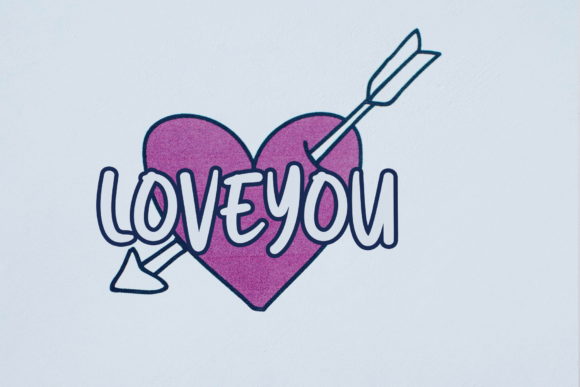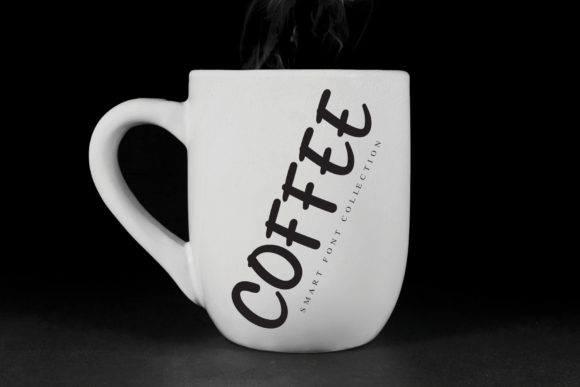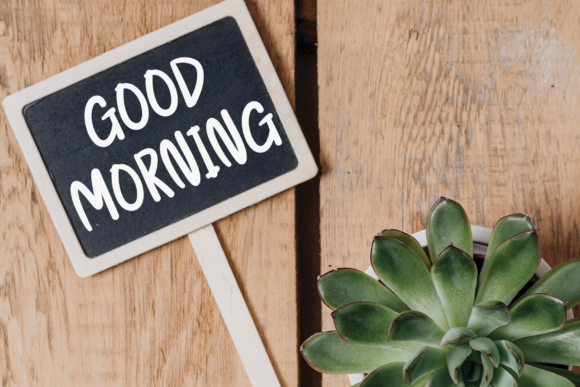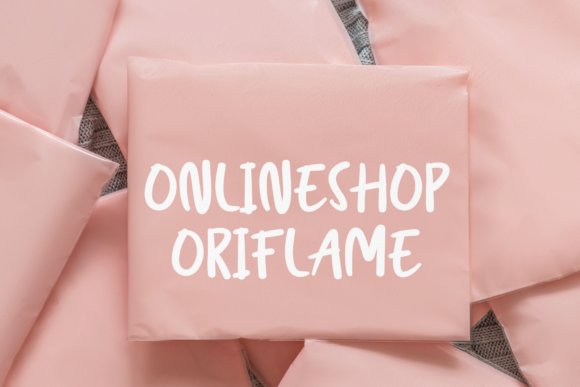
About Honey Bee Font
Honey Bee is a casual handwritten font that adds a touch of simplicity and charm to your craft designs. With its effortless style and easy readability, this font is perfect for mixing with various craft projects and creating beautiful compositions.
The casual nature of Honey Bee font makes it approachable and versatile. Its natural and relaxed letterforms contribute to a visually pleasing aesthetic that feels genuine and authentic. Whether you’re working on scrapbooking, card making, DIY crafts, or any other creative project, Honey Bee font enhances the overall visual appeal with its casual and easygoing demeanor.
Using Honey Bee font allows you to incorporate a sense of simplicity and beauty into your craft designs. Its handwritten appearance adds a personal and organic touch, making your designs feel handcrafted and unique. This font brings a sense of warmth and friendliness, making your compositions visually appealing and relatable to your audience.
The easy readability of Honey Bee font ensures that your message is conveyed clearly and effectively. Its legible letterforms make it suitable for both headline and body text, giving you the flexibility to use it in various design elements.
Incorporating Honey Bee into your craft designs empowers you to create visually captivating and charming visuals. Its casual handwritten font adds a touch of simplicity and enhances the overall impact of your creations.
In summary, Honey Bee is a casual handwritten font that brings simplicity and charm to your craft designs. Its natural and relaxed letterforms create a visually appealing and genuine aesthetic. Embrace the effortless style of Honey Bee font and let it enhance your various craft projects with its casual and easygoing presence, making them visually captivating and relatable.